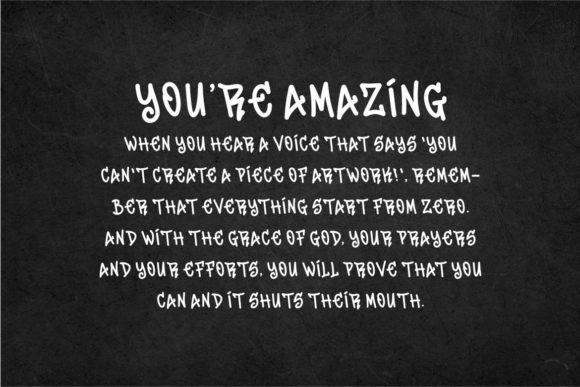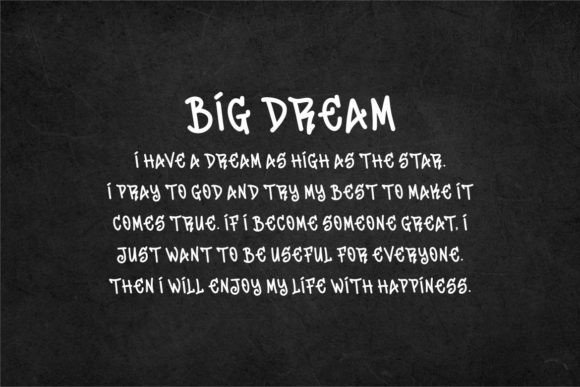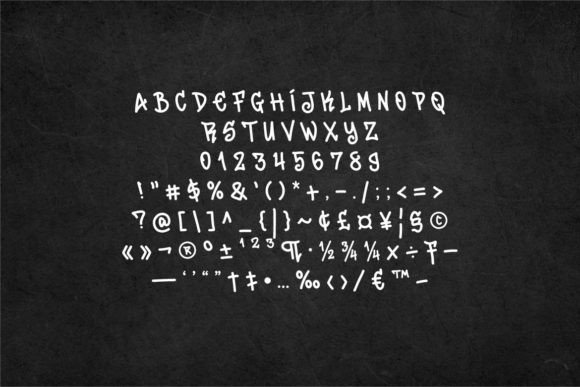
Unleash Your Street Art Style with the Graffiter Font
You’ve got a brilliant idea for a logo, and you can almost see it splattered across a city wall. The colors are vibrant, the typography is bold, and the message is clear. But, you need the perfect font to bring your vision to life. This is where the Graffiter Font comes in – a versatile and edgy typography solution that’s perfect for designers looking to add a street art twist to their work.
Whether you’re working on a logo, wall art, apparel branding, or team logo, the Graffiter Font is an invaluable asset. Its unique style and character make it an ideal choice for designers who want to create eye-catching and memorable designs. With the Graffiter Font, you can take your creativity to the next level and produce stunning visuals that stand out from the crowd.
- Unique Characteristics: This font features a distinctive graffiti-inspired design, with bold lines, rough textures, and a urban feel, perfect for adding a touch of edginess to designs.
Graffiter Font Review
Overall, I’m quite impressed with the Graffiter Font. It’s a unique, hand-drawn font that exudes a sense of edginess and creativity. ✨ I love how it’s perfect for designs that require a bold, eye-catching aesthetic.
- Hand-drawn style adds a personal touch to designs
- Wide range of characters and punctuation options
- Can be used for both digital and print media
However, there are some limitations to consider. ⚠️ The font’s irregular lines and unpredictable spacing can make it difficult to read in certain contexts. Additionally, the font’s large size requirements can slow down loading times.
- May be challenging to read in small font sizes
Despite these limitations, I think Graffiter Font is a great choice for designers who want to add a touch of creativity and whimsy to their projects. It’s perfect for social media graphics, posters, and other designs where a bold, attention-grabbing font is needed.
Common Use Cases for Graffiter Font
Graffiter Font is ideal for street art-inspired designs, urban graphics, and edgy marketing materials. Use it to add a touch of rebellion and attitude to your designs, or to create a bold and attention-grabbing headline.